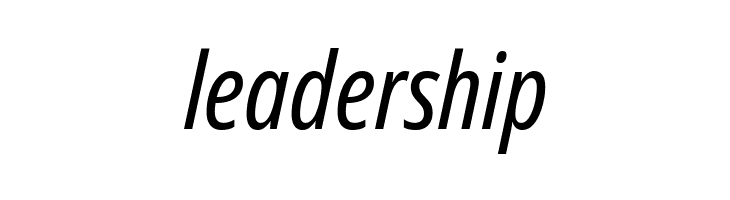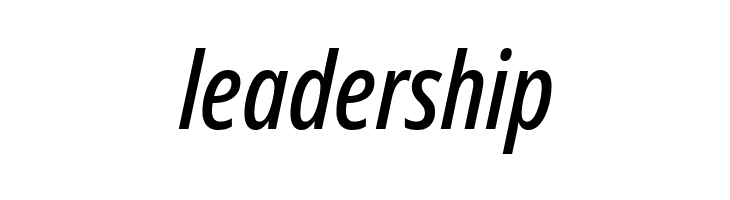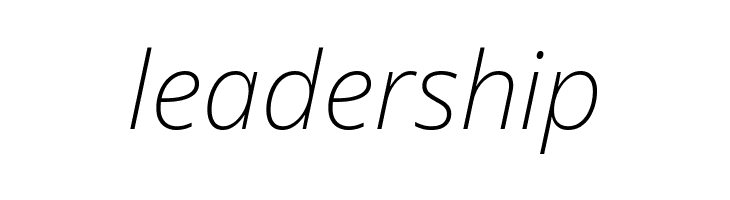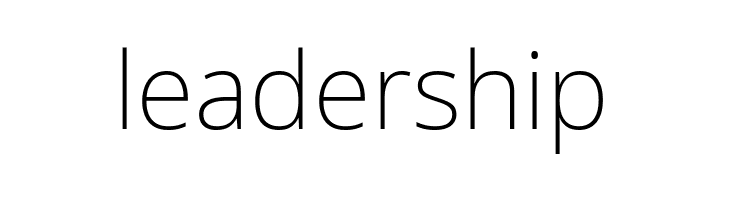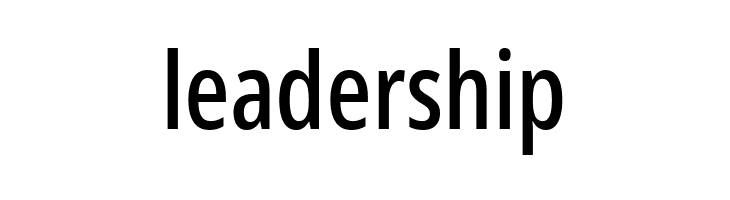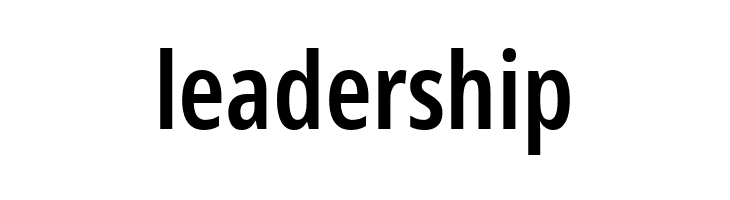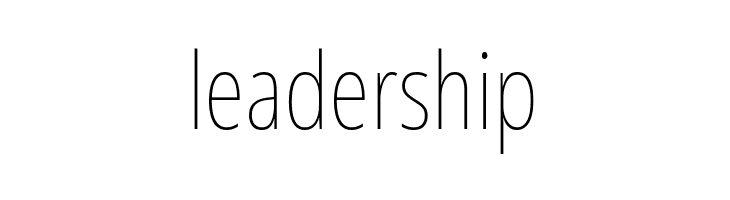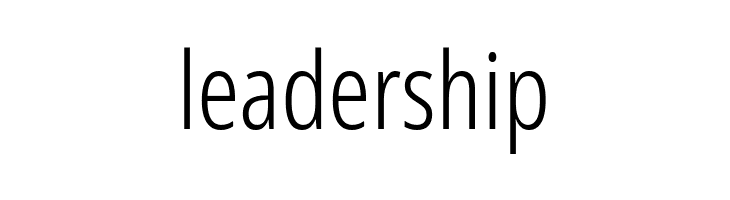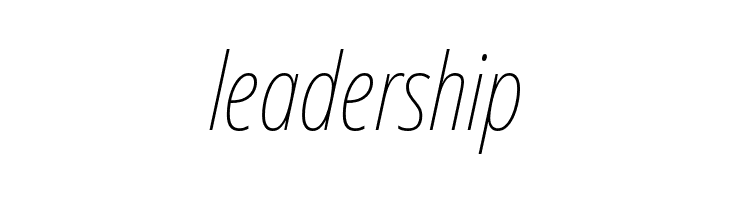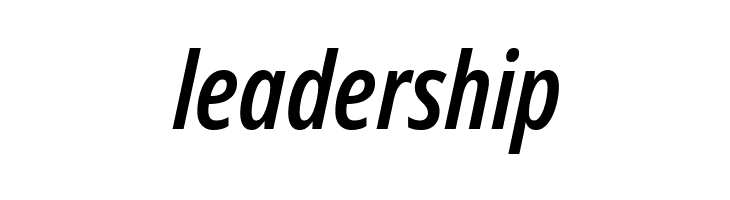
A modern, extra-condensed sans-serif italic font with tight spacing.
A sleek, modern sans-serif font with an extra condensed and italicized style.
A modern, extra condensed sans-serif font with a light and airy appearance.
A modern, extra condensed sans-serif font with a light weight and clean design.
A sleek, extra-condensed, light, and italic sans-serif font with a modern style.
A sleek, extra condensed sans-serif font with a light, italic style.
A modern, extra-condensed sans-serif font with medium weight, ideal for space-efficient text.
A modern, extra condensed sans-serif font with medium weight and high legibility.
A sleek, extra condensed italic typeface with a modern and dynamic style.
A modern, extra condensed sans-serif font with medium weight and italic style.
A modern, extra condensed sans-serif font with semi-bold weight for versatile use.
A modern, extra condensed sans-serif font with semi-bold weight and tight spacing.
A modern, extra condensed, semi-bold italic sans-serif typeface with tight spacing.
A modern, extra condensed sans-serif font with semi-bold weight and italic style.
A modern, extra-condensed sans-serif font with thin strokes and a clean aesthetic.
A modern, extra condensed sans-serif font with a thin weight and clean design.
A sleek, extra condensed, thin italic font with a modern and elegant design.
A sleek, modern, thin italic typeface with extra-condensed width.
A clean, modern sans-serif font with a light weight and geometric precision.
A clean, minimalist sans-serif font with uniform stroke width and excellent readability.
A sleek, extra light sans-serif font with an italic style, offering modern elegance.
A modern, light, and italic sans-serif font with a sleek design.
A modern, clean, and geometric sans-serif typeface.
A modern, condensed sans-serif font with medium contrast and geometric precision.
Condensed, bold sans-serif font for modern display use.
A modern, condensed, and bold font with geometric shapes and uniform strokes.
A modern, condensed, extra bold sans-serif font with a clean and geometric design.
A clean, modern, and extra-light condensed font with a geometric style.
A modern, condensed, and light sans-serif font with a clean design.
A bold, geometric font with clean lines and strong presence.